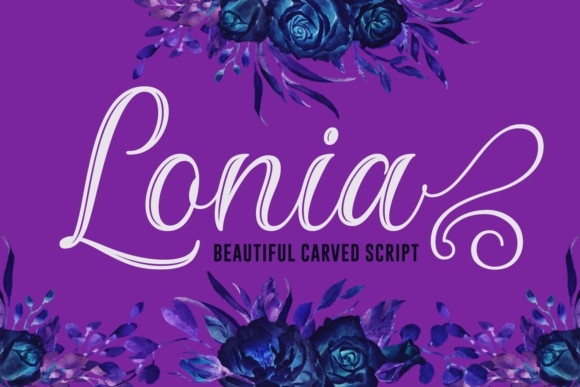
Lonia Script Font
Lonia Script Font is perfect for romantic wedding stationery, elegant greeting cards, feminine brand logos, beauty salon signage, fashion boutique displays, luxury event invitations, artisanal product labels, and sophisticated social media graphics. This graceful typeface excels in applications where flowing elegance and refined femininity are desired to create enchanting visual experiences.
What makes Lonia Script Font truly exciting is its seamless blend of classic calligraphy traditions with contemporary design sensibilities. The font features smooth, interconnected letterforms that dance across the page with effortless grace, creating a sense of movement and fluidity. Its delicate curves and refined flourishes demonstrate exceptional craftsmanship, while the consistent rhythm and spacing ensure excellent readability. The typeface strikes the perfect balance between ornate decoration and practical functionality, making it suitable for both display and text applications.
The Lonia Script Font family includes regular and bold weights, complemented by an extensive collection of decorative alternates and swashes. The font offers multiple stylistic sets with varied letter connections, enabling designers to create unique combinations that feel naturally handwritten. Additional ornamental characters, including flourished capitals and elegant terminals, provide enhanced creative possibilities for custom lettering projects.
For designers seeking a versatile and sophisticated script typeface, Lonia Script Font Free Download represents an outstanding choice that elevates any creative project. Whether you're crafting brand identities for wellness companies, designing packaging for premium cosmetics, or creating editorial layouts for lifestyle magazines, this font delivers the refined elegance that appeals to sophisticated audiences. Its graceful letterforms and smooth connections make it particularly effective for brands targeting female demographics or luxury markets. The font's ability to convey both romance and professionalism makes it an essential addition to any designer's collection, offering endless possibilities for creating memorable and impactful typography that resonates with discerning clients.